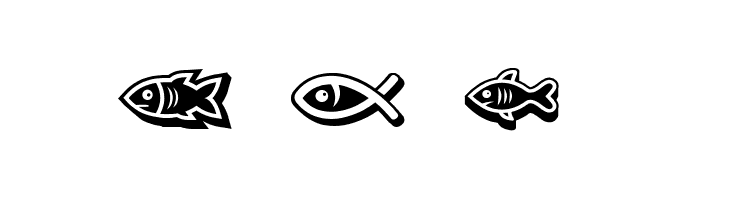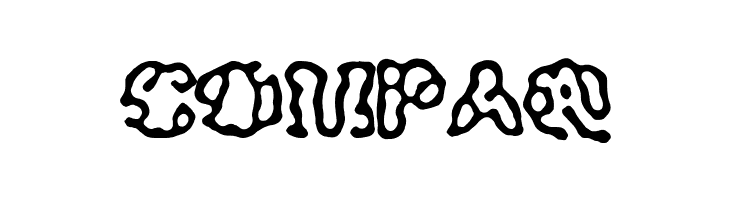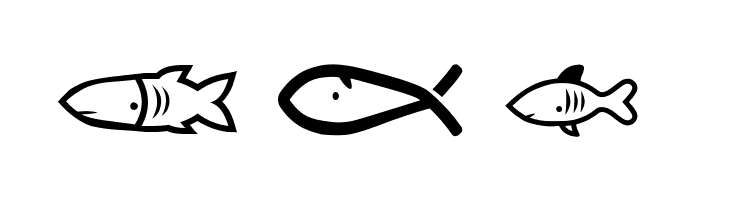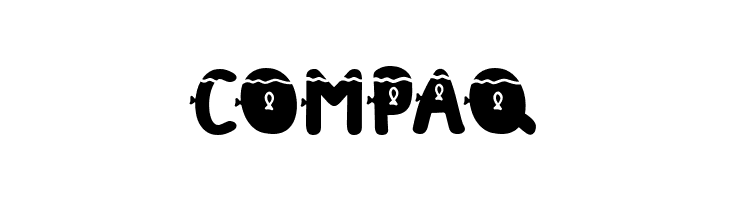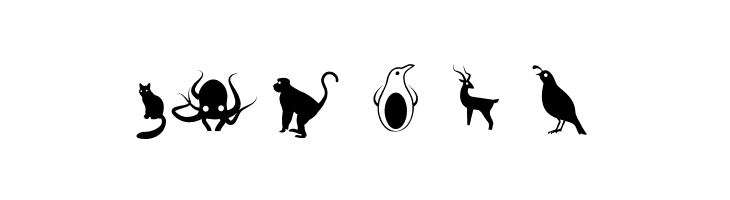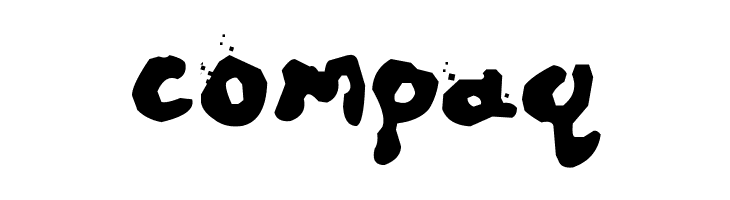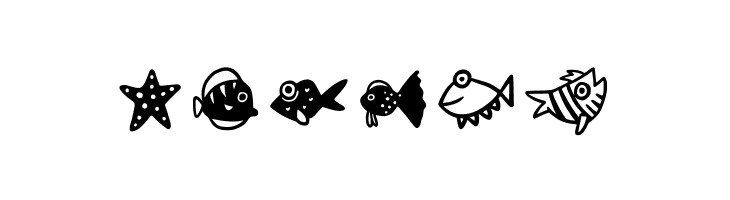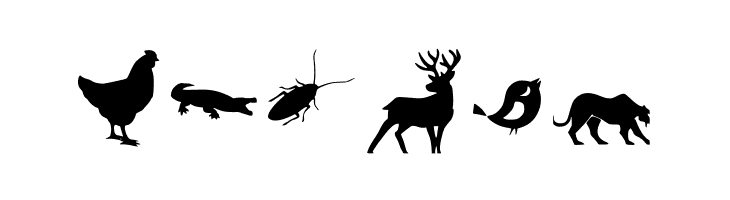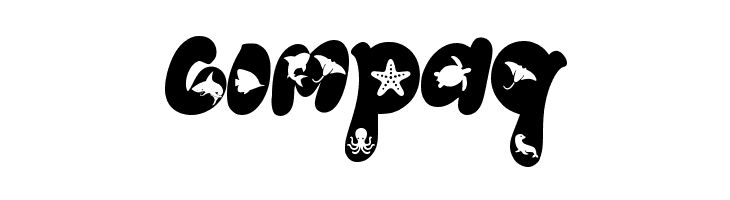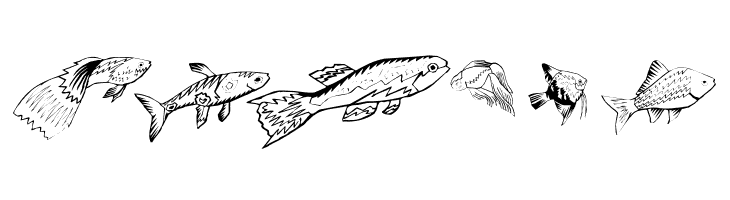
A decorative font with intricate fish illustrations integrated into each character.
A bold decorative font with integrated fish graphics for a playful touch.
A decorative font featuring intricate fish designs with flowing lines and detailed patterns.
A playful, fish-themed decorative font with bold outlines and whimsical designs.
A decorative font with bold, fish-scale-like patterns and playful contours.
A playful, fish-themed decorative font with bold, whimsical characters.
A playful, aquatic-themed font with bold, rounded characters and unique cutouts.
A bold, playful font with an ink-splatter effect and hand-drawn style.
A bold, playful font with integrated fish motifs for a whimsical touch.
Hand-drawn fish illustrations form each character in a playful, decorative style.
A display font composed of detailed fish illustrations for each character.
Ornate illustrated font with underwater sea life motifs.
Marine-themed dingbat font with orcas, whales, and nautical icons.
A display font made from silhouettes of giant sea animals.
A whimsical, illustrative font with fish-shaped characters.
Animal silhouettes in a bold, decorative style.
Animal silhouette font with each character as a distinct animal shape.
A whimsical, decorative font inspired by birds and fish, featuring intricate and playful designs.
Abstract, fish-themed decorative font with geometric symbols.
A decorative font with characters designed as unique fish shapes within diamond frames.
Animal-themed decorative dingbat font with diverse, detailed illustrations.
Marine-themed decorative font with detailed sea life illustrations.
A whimsical decorative font using fish illustrations as characters.
A decorative dingbat font with diverse octopus illustrations.
A playful, tentacle-inspired font with bold, dynamic characters.
A display font composed entirely of diverse trident symbols.
A decorative font with unique animal silhouettes for each character.
A whimsical font featuring fish and sea-themed icons in a playful, cartoonish style.
Animal-themed silhouette dingbat font.
Bold, playful font with ocean animal motifs in each character.